24 Y2K Canva Fonts
Love the 2000s style and want to include it in your work? Then what you need are some Y2K fonts. Yes, there are many fonts that have the charm to bring those nostalgic vibes into your projects.
It doesn’t matter what you’re working on, whether it’s a school presentation, personal journal, or branding material; these fonts can make your project stand out. And you don’t need to look further because Canva has a list of these fonts.
However, with thousands of fonts on Canva, it can be hard to find them. To help you out, in this article, I will share a list of 24 Y2K Canva fonts. These fonts are free and can be paired with other fonts easily.
24 Y2K Canva Fonts
1. Druzhba Retro:
2. Candice:
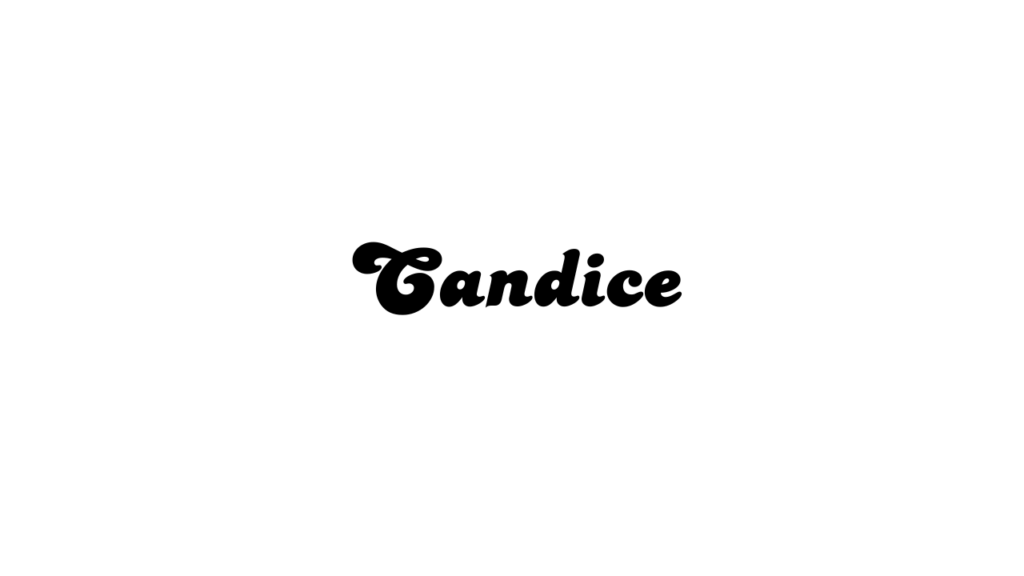
3. Genty:
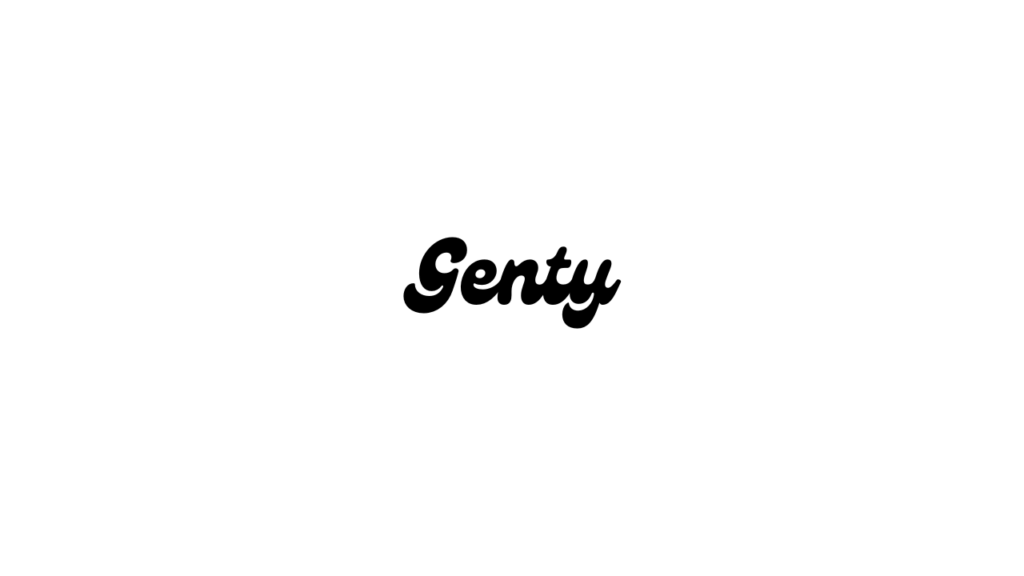
4. Gliker:
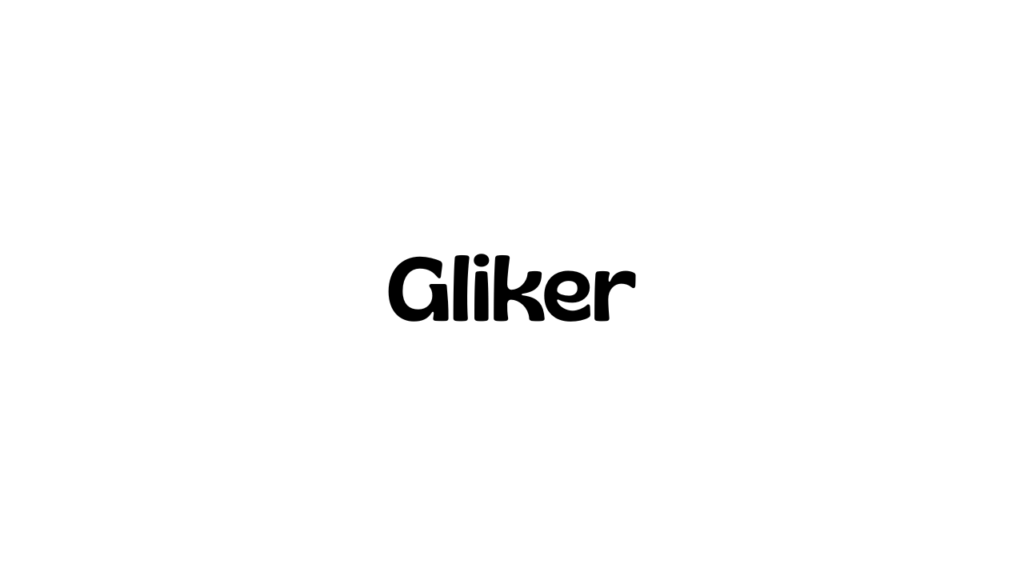
5. Molenilo:
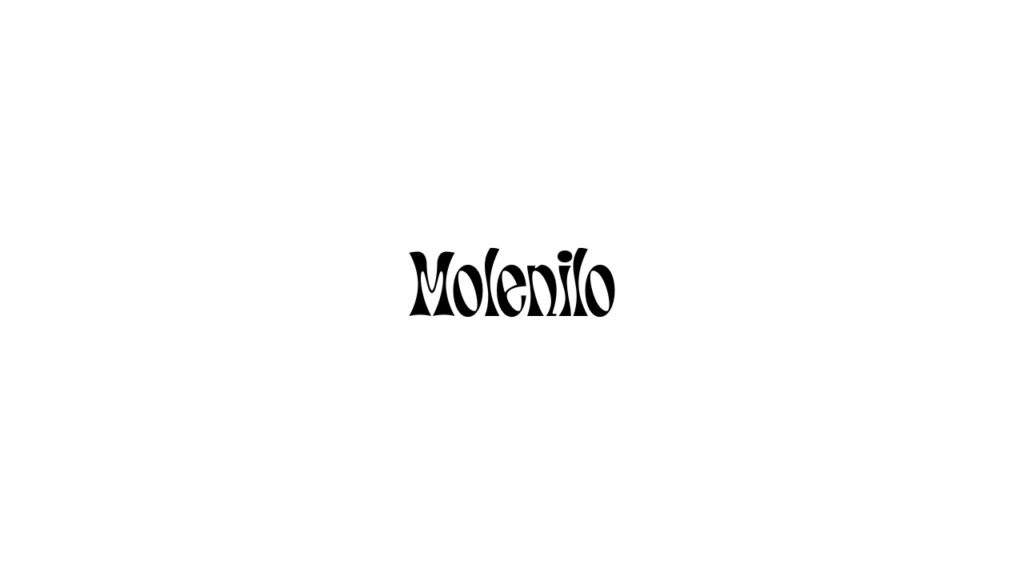
6. Papyrus:
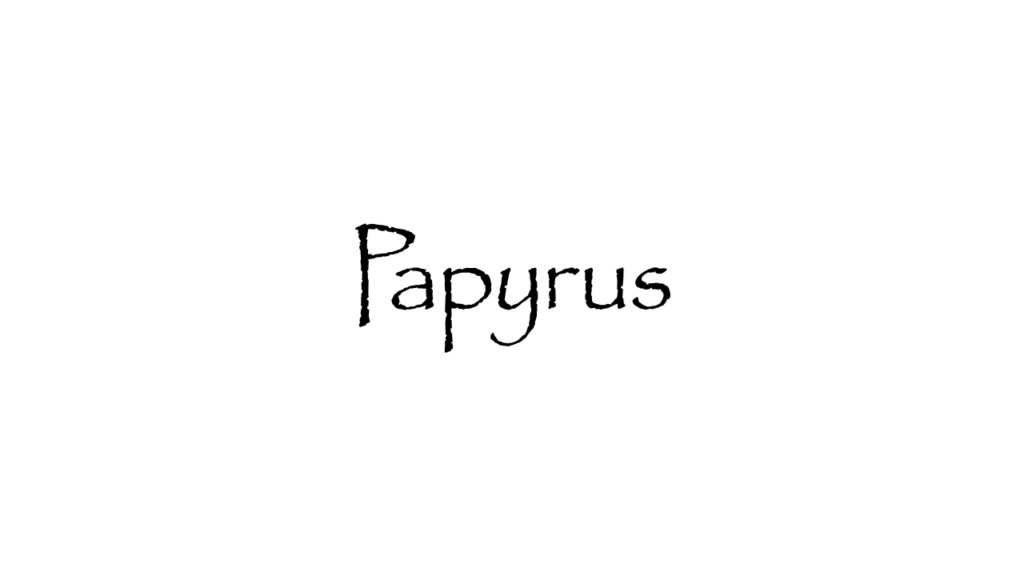
7. Donau:
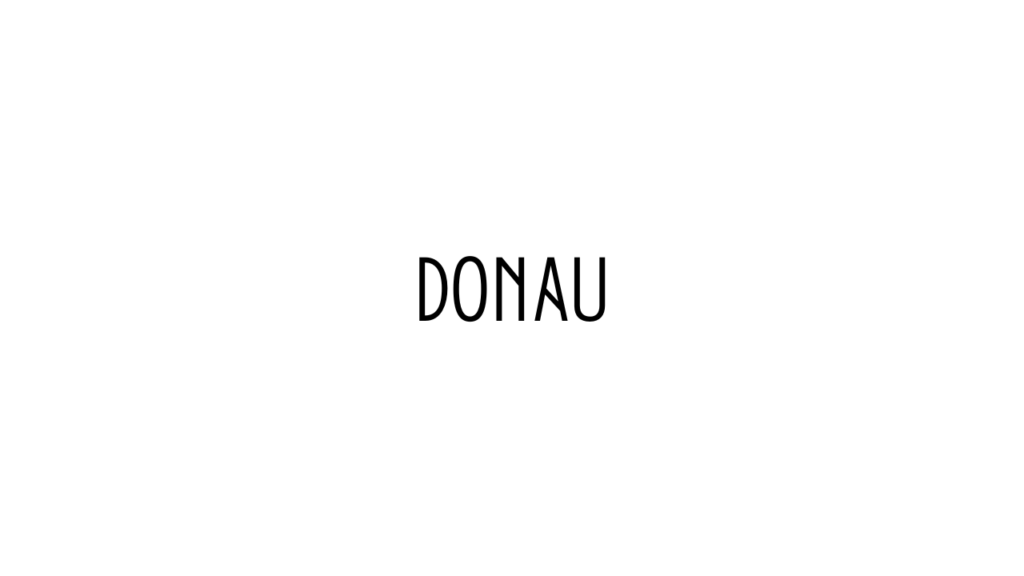
8. Tropika Script:
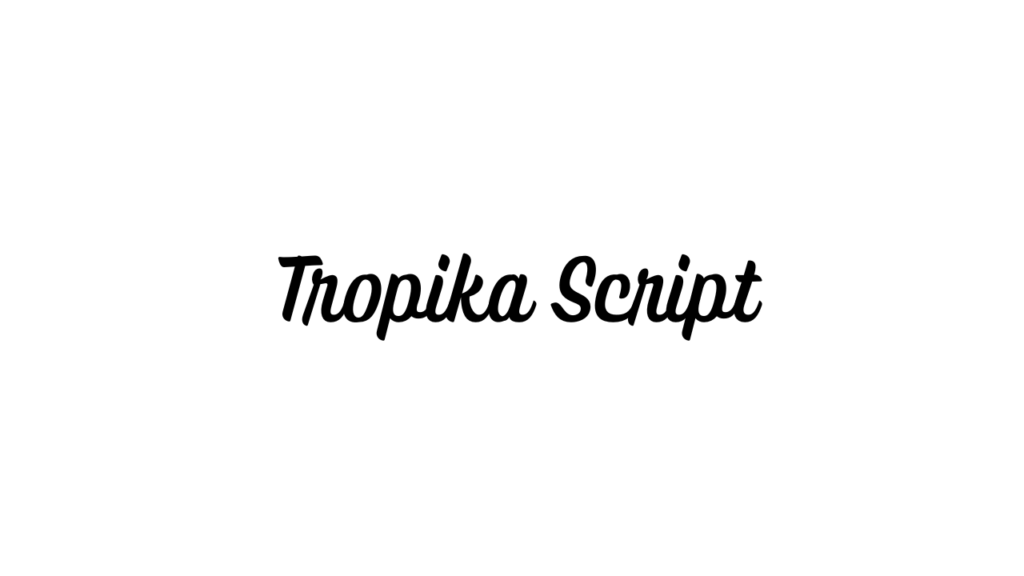
9. Track:
10. Bernier Shade:
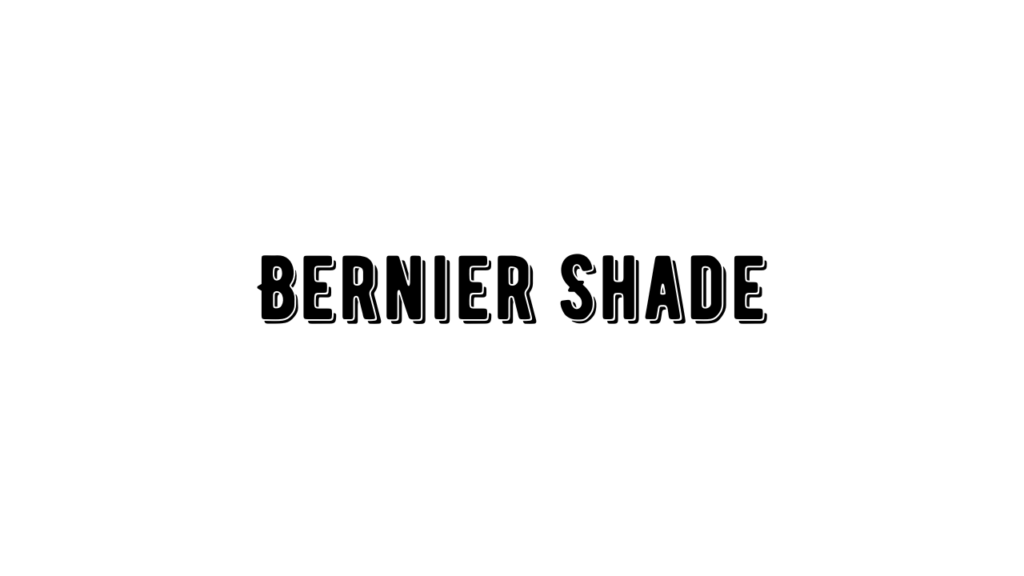
11. Hobo:
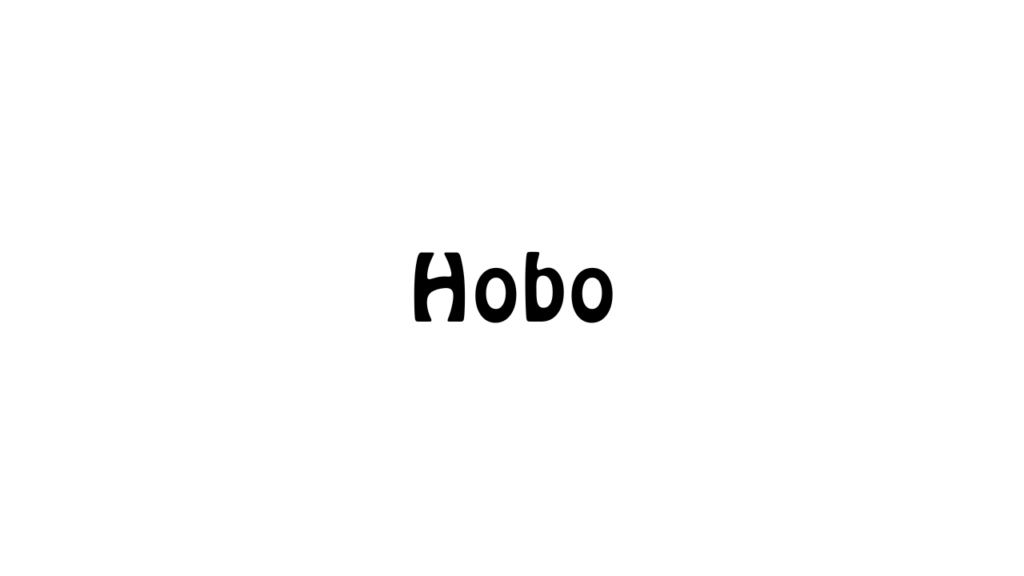
12. Limelight:
13. Satisfy:
14. Berkshire Swash:
15. Grand Hotel:
16. Graduate:
17. Lovelo:
18. Bangers:
19. Six Caps:
20. Cheque:
21. Meteoritika:
22. Cranberry:
23. Jorick:
24. Coiny:
Conclusion
Q: What are Y2K fonts on Canva?
Y2K fonts on Canva are text styles that are inspired by the trends and designs of the early 2000s. These fonts can be bold, cool, and playful.